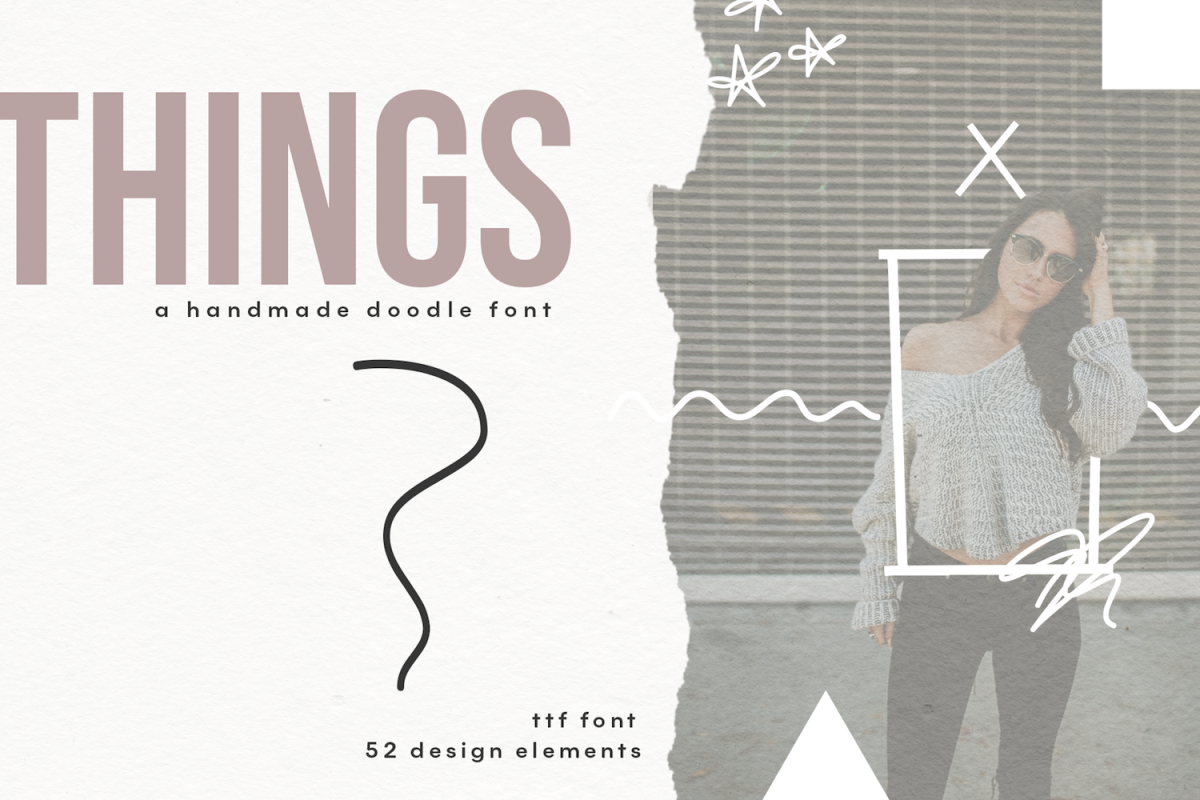
Things - A Doodle Design Font
Things is a doodle (dingbat) font.
It includes 52 hand-drawn, doodles.
Instead of separate image files, you have access to all 52 in the convenience of a font!
Instead of a letter showing up, a small doodle will!
You can resize the doodle, color the doodle and add text to the doodles!